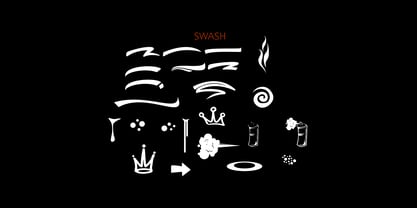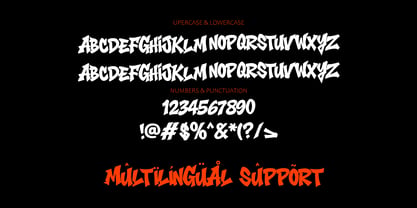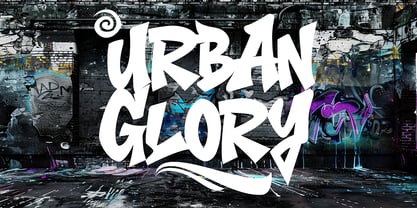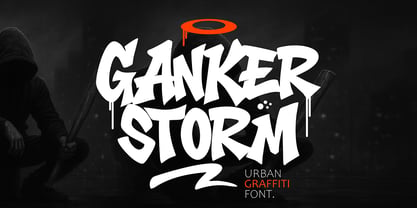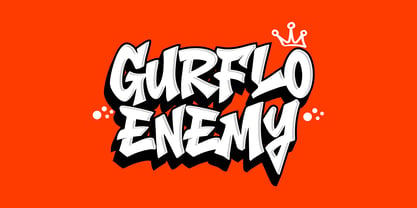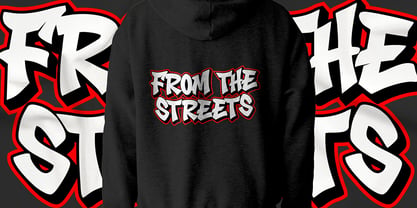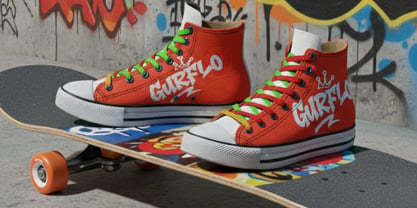
Ganker Storm
The Ganker Storm Font Family was designed by Sipanji and published by Sipanji21. Ganker Storm contains 2 styles and family package options. More about this family
Ganker Storm is a wild graffiti display font packed with raw energy, fearless motion, and expressive street-style attitude. Designed to look like authentic hand-painted tagging, this typeface combines sharp strokes, bold curves, and untamed rhythm to bring the full force of urban graffiti into modern digital design. Its aggressive brush flow makes every character look alive—like fresh paint hitting the wall. Unlike clean or minimal graffiti fonts, Ganker Storm embraces chaotic movement and imperfect pressure. The letters feel fast, rebellious, and spontaneous, capturing the real essence of street art. From harsh angles to explosive drips and thick uneven strokes, the font mimics real aerosol and marker gestures, resulting in a design that feels natural, fluid, and powerful. Ganker Storm includes uppercase characters, numbers, punctuation, multilingual support, and a dedicated Swash version that enhances its intensity. The swashes add longer motion lines, extended endings, and aggressive visual direction, allowing designers to build energetic compositions that look fully hand-lettered. These added elements help you create dramatic layers, dynamic logos, and expressive headlines with a stronger sense of movement. This typeface is built for bold, high-impact visual projects that demand loud personality. Its rugged forms work beautifully for streetwear branding, festival posters, hip-hop graphics, album covers, extreme sports visuals, murals, gaming overlays, and YouTube title designs. The thick graffiti silhouette ensures it remains readable even in busy designs or layered artwork, making it a practical choice for display usage. Powerful Street Identity Every stroke in Ganker Storm is crafted to replicate the adrenaline of street tagging. The typeface carries the aggression and rhythm of wildstyle graffiti, but with digital refinement that keeps it usable across modern platforms. Designers love its ability to transform simple text into a striking visual centerpiece—loud, fearless, and full of attitude. The Swash Advantage The included swash style gives you expanded creative freedom. It adds deeper movement, sharper accents, and extended flow, making your typography look like a custom lettering piece. The swashes help break repetition, allowing each composition to feel fresh, unique, and more authentic to real graffiti artwork. Designed for Digital Artists & Modern Brands Ganker Storm adapts well to: Merchandise & apparel Street culture branding Graffiti-themed packaging Music promotions Event posters Motion graphics & thumbnails With its combination of structure, spontaneity, and aggressive energy, Ganker Storm is the ultimate font for designers exploring the wild side of graffiti typography.